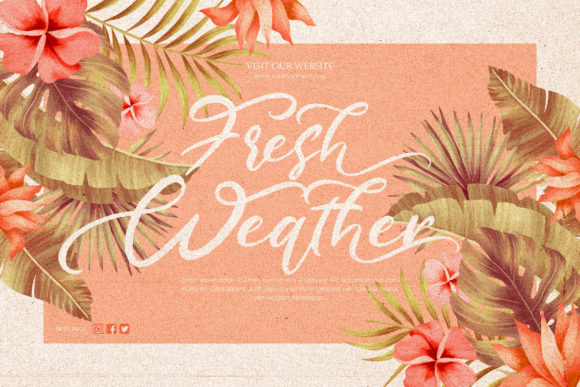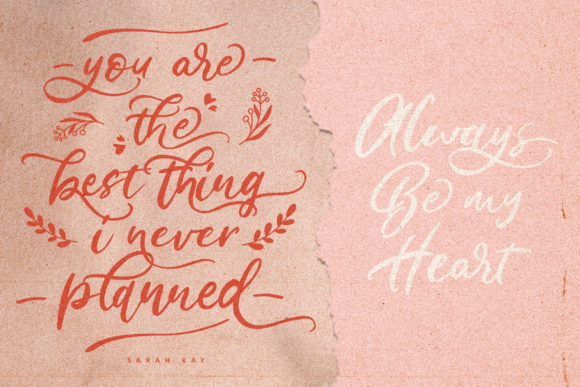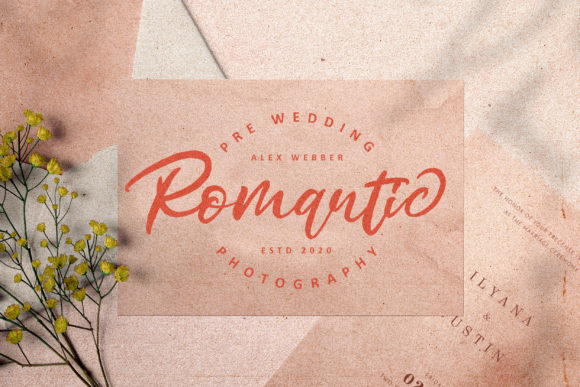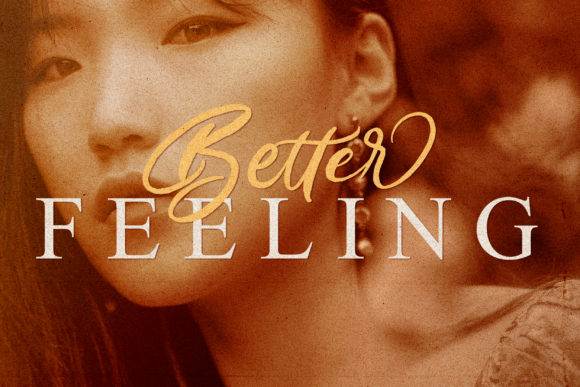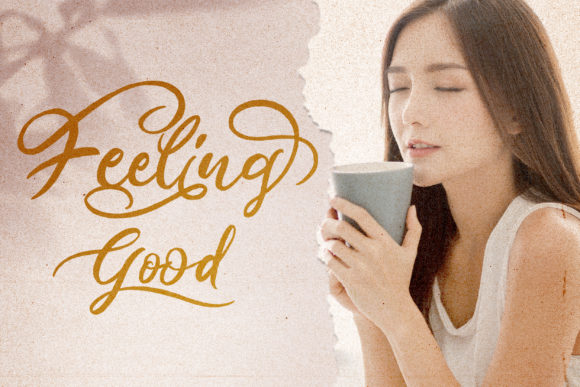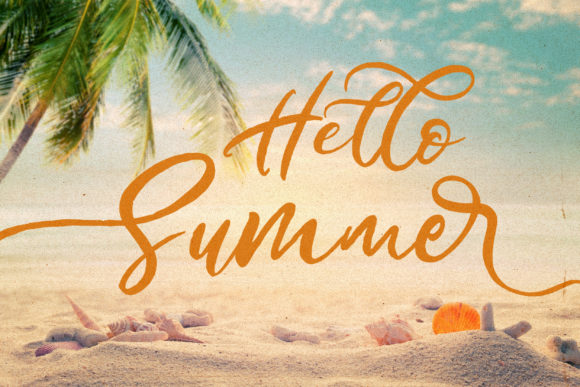
Cornellia Font: The Ultimate Friendly Handwritten Script for Designers and Crafters
Are you tired of using the same old fonts in your designs? Look no further than Cornellia Font, a cute and casual handwritten script that is sure to add a touch of friendliness to any project. With its gorgeous swashes and ligatures, Cornellia is the perfect choice for designers and crafters looking to add a personal touch to their work.
What Makes Cornellia Font So Special?
Cornellia Font is more than just a pretty face – it’s a highly versatile script that is packed with features that make it easy to use and customize. Here are just a few of the things that set Cornellia apart:
- PUA Encoding: Cornellia Font is PUA (Private Use Area) encoded, which means that you can access all of the amazing glyphs and swashes with ease. No more complicated keyboard shortcuts or software required – simply type away and enjoy the beautiful, flowing script that Cornellia provides.
- Gorgeous Swashes and Ligatures: Cornellia Font features a stunning range of swashes and ligatures that add a touch of elegance and sophistication to any design. Whether you’re creating a logo, a poster, or a social media graphic, Cornellia’s swashes and ligatures are sure to impress.
- Alternate Glyphs and Ligatures: But that’s not all – Cornellia Font also features a wealth of alternate glyphs and ligatures that allow you to customize your text to your heart’s content. Want to change the look of a particular letter or word? No problem – with Cornellia, you have the flexibility to create a truly unique design.
Whether you’re a professional designer or a crafter looking to add a personal touch to your projects, Cornellia Font is the perfect choice. Here are just a few ways that you can use Cornellia in your designs:
- Logos and Branding: Create a beautiful, unique logo for your business or brand with Cornellia Font. The script’s friendly, approachable feel makes it perfect for businesses that want to connect with their customers on a personal level.
- Posters and Flyers: Add a touch of elegance and sophistication to your posters and flyers with Cornellia Font. The script’s gorgeous swashes and ligatures make it perfect for creating eye-catching headlines and titles.
- Social Media Graphics: Create stunning social media graphics with Cornellia Font. The script’s friendly, casual feel makes it perfect for creating engaging, shareable content that will help you connect with your audience.
- Crafting and Scrapbooking: Cornellia Font is also perfect for crafters and scrapbookers who want to add a personal touch to their projects. Use the script to create beautiful journaling and titles that will make your projects stand out.
Tips for Using Cornellia Font
Here are a few tips for getting the most out of Cornellia Font:
- Experiment with Different Sizes and Colors: Cornellia Font looks great in a variety of sizes and colors, so don’t be afraid to experiment and find the look that works best for your design.
- Mix and Match Swashes and Ligatures: Cornellia Font features a stunning range of swashes and ligatures, so try mixing and matching them to create a unique look.
- Use Alternate Glyphs and Ligatures: Don’t be afraid to get creative with Cornellia’s alternate glyphs and ligatures. They can add a touch of personality and whimsy to your design.